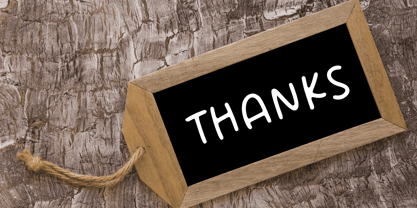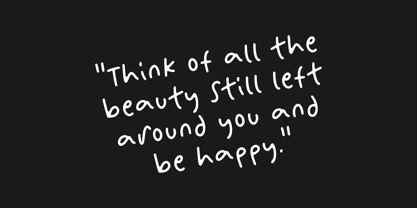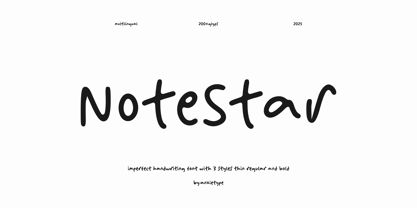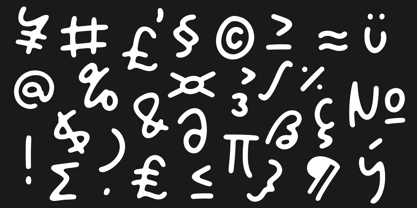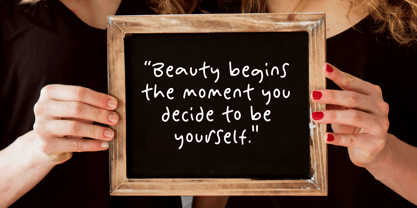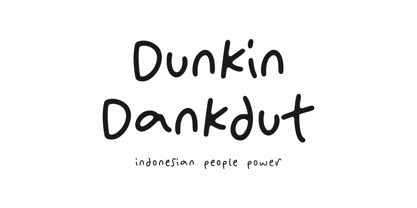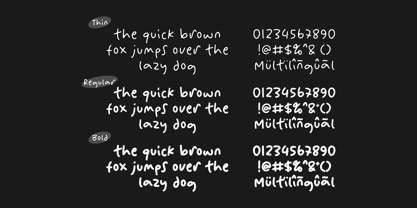
NoteStar
by Anxietype Foundry
The NoteStar Font Family was designed by Bias Surya Buana, Annas Rifky Anhar and published by Anxietype Foundry. NoteStar contains 3 styles and family package options.
Introducing Notestar Display Font, a signature creation of the Anxietype Foundry that seamlessly blends imagination and typography. Sculpted with a handcrafted touch, it breathes life into a spectrum of applications, from crafting and branding to logo creation and package design. Notestar Display Font doesn't just stop at face value; it is the key to adding a unique splash to personal items like t-shirts, birthday announcements, or setting a distinct style for book projects, diary entries, and planners. This font is also a favorite for making statements, infusing depth and character to quotes against any backdrop. Embrace the versatility and personality of Notestar Display Font in each stroke and letter.
Designers: Bias Surya Buana, Annas Rifky Anhar
Publisher: Anxietype Foundry
Foundry: Anxietype Foundry
Design Owner: Anxietype Foundry